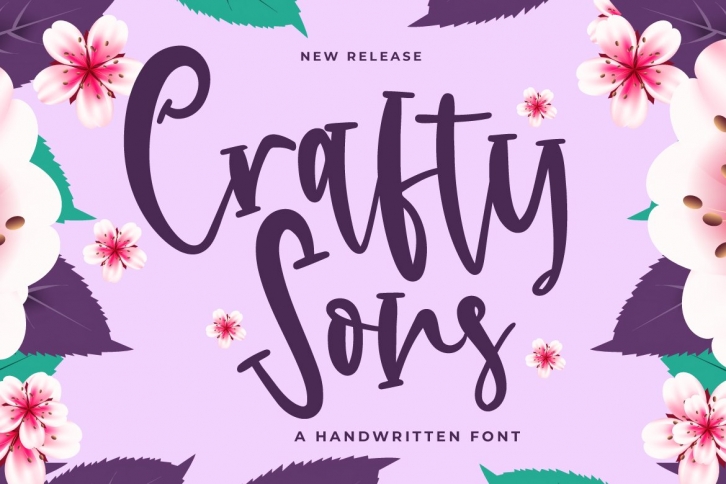
Crafty Sons is a trendy and unique font with an authentic style. It was designed by FallenGraphic Std and it's a great choice for creative people who need such a font. It was released on March 8, 2021 and the file size is 10.76 MB. Crafty Sons will add an organic vibe to any design idea!